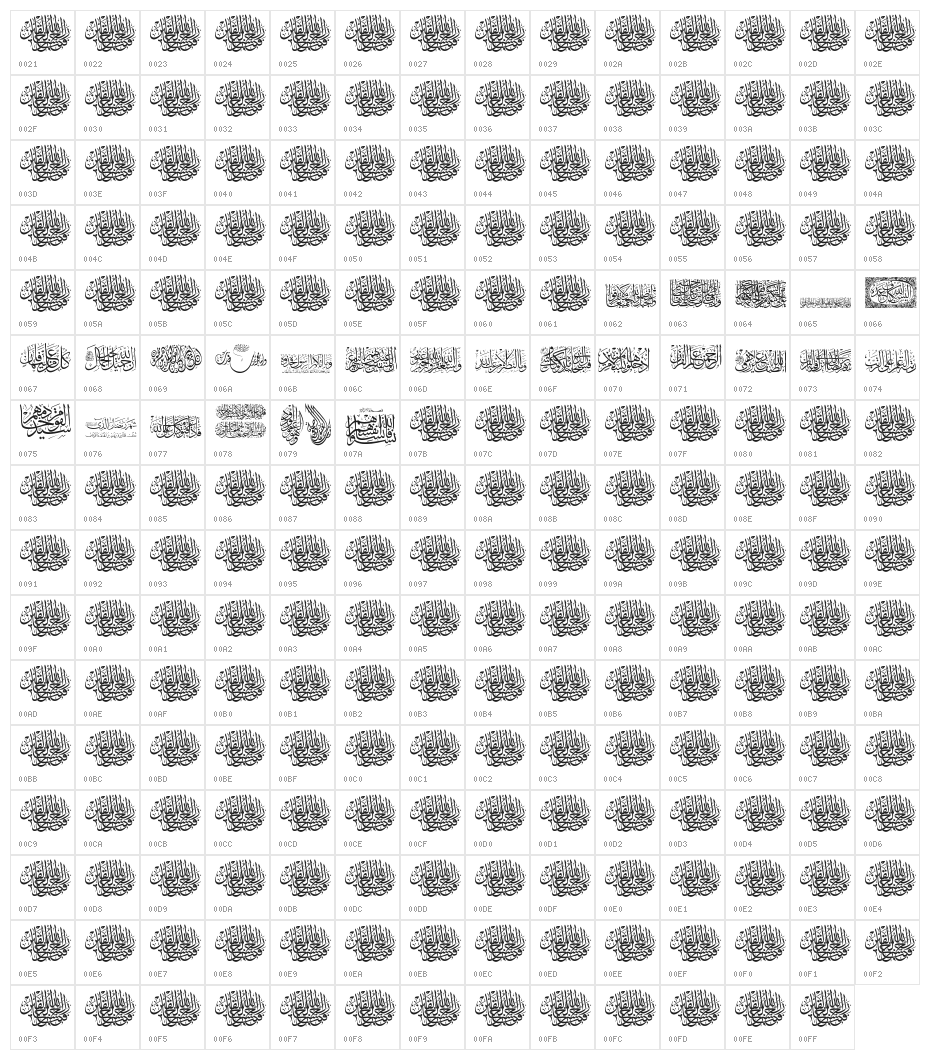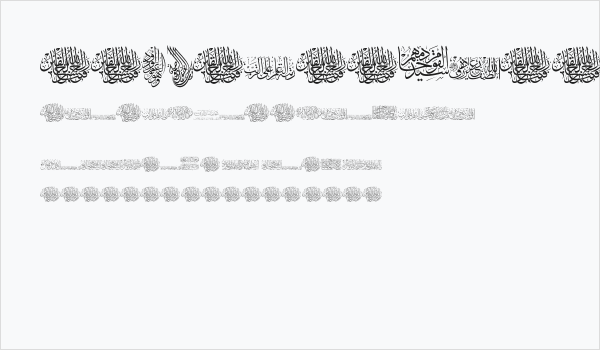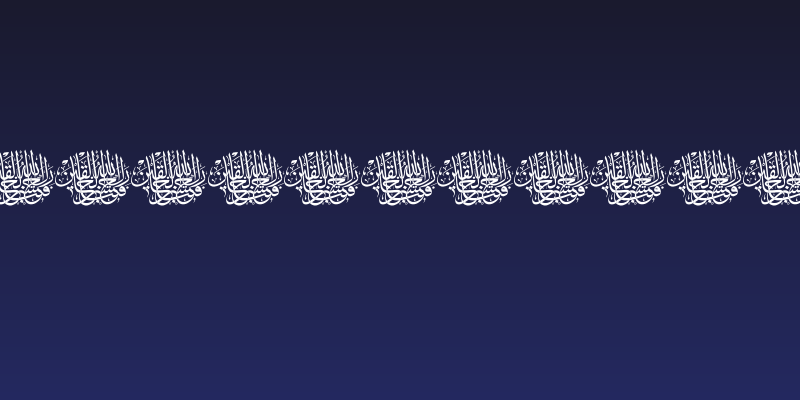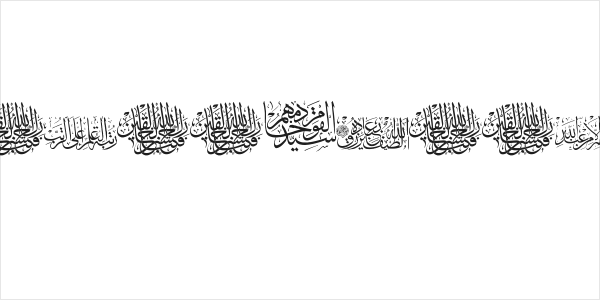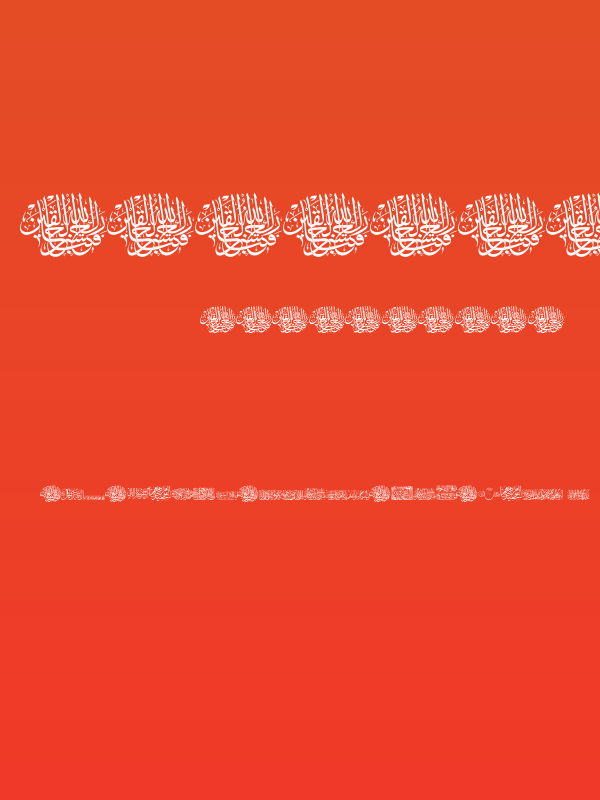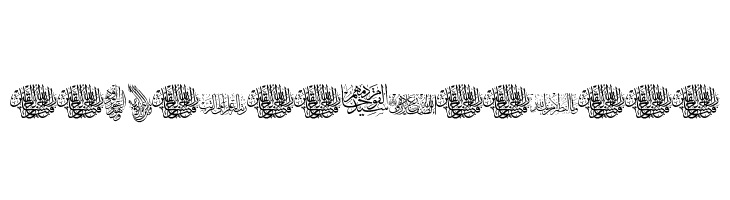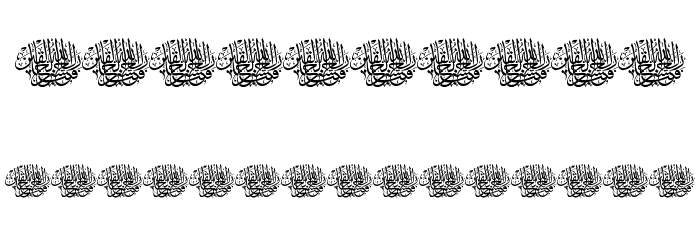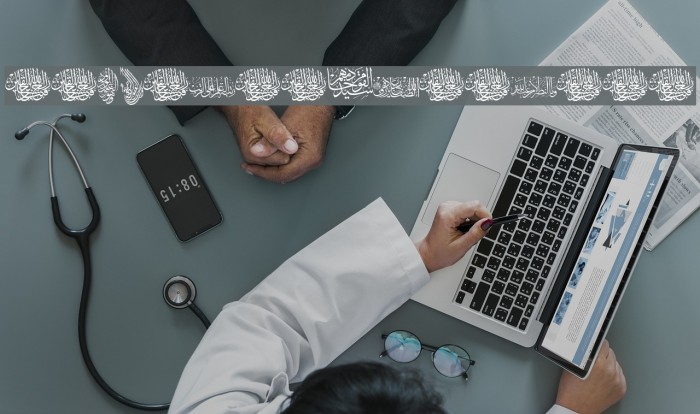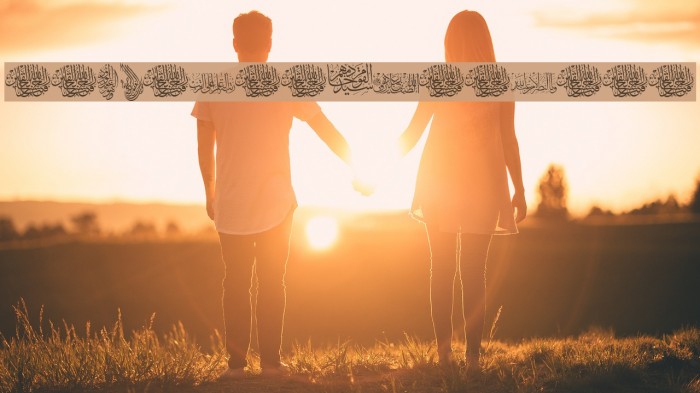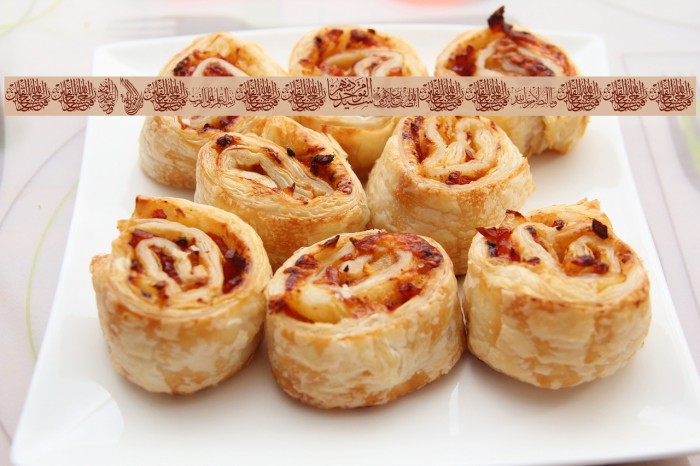
Aayat Quraan 18 Font
Aayat Quraan 18 Description
Highly decorative Arabic script with intricate calligraphic flourishes, dense letterforms, and ornate detailing, commonly used for religious or ceremonial purposes.
| Width | Condensed |
| Overall Style | Decorative, Traditional, Religious |
| Use Case | Religious scripture, Art pieces, Ceremonial headings |
| Proposed Projects | Religious texts, ceremonial documents, decorative borders, Islamic art, Quranic verses. |